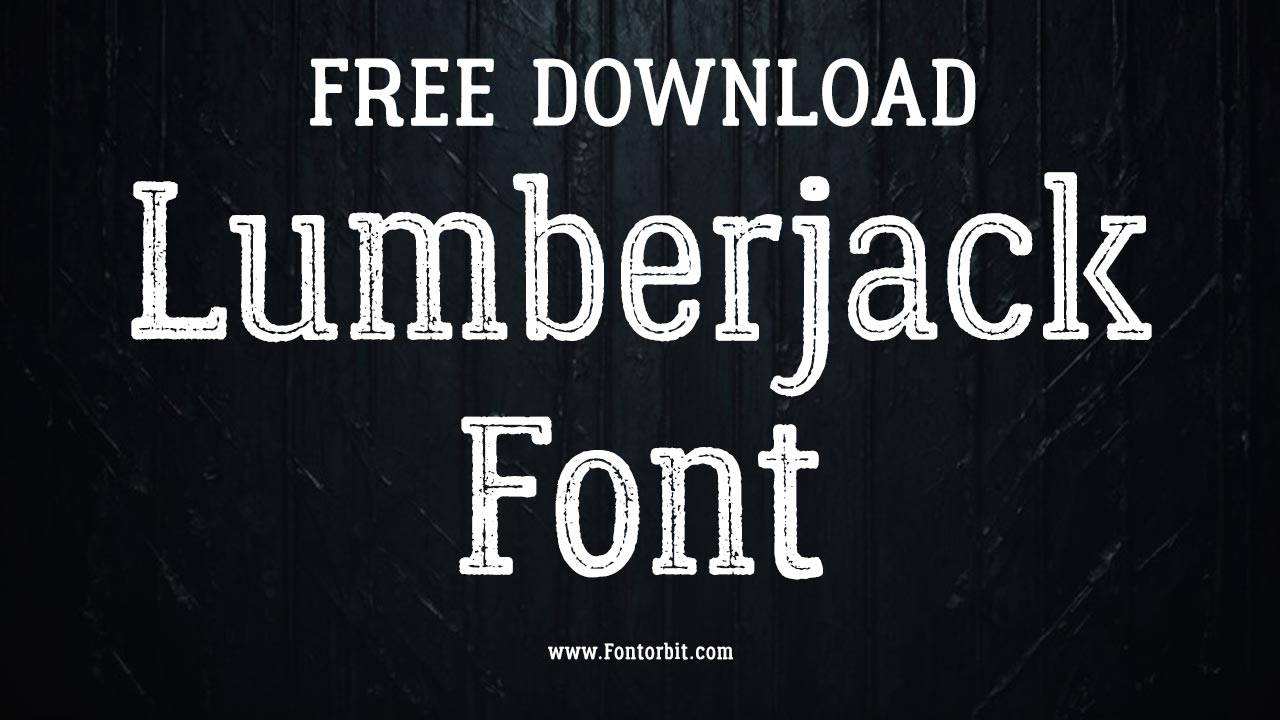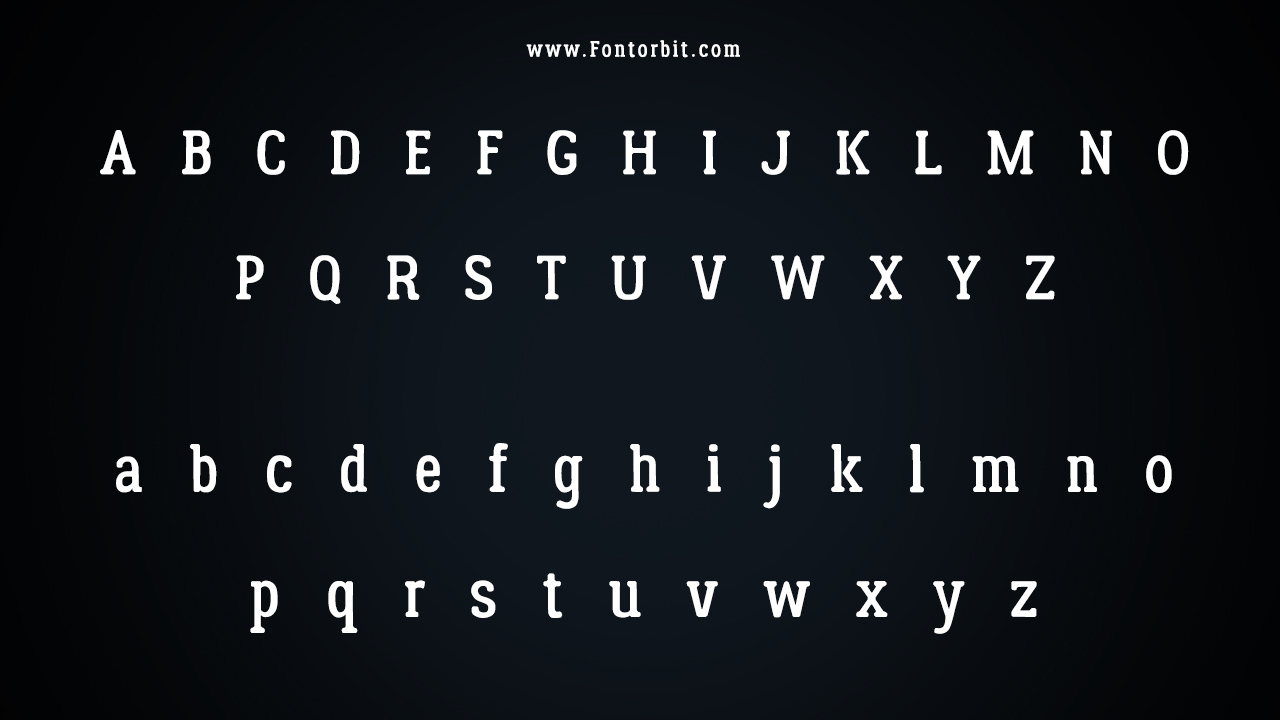
The Lumberjack Font, designed by Alexey Kalinin, is a versatile typeface known for its rugged and outdoorsy aesthetic. Featuring styles such as Regular, Rough, and Inline Rough, Lumberjack adds a touch of texture and robustness to your projects, making it perfect for designs that call for a strong and authentic appearance.
The Lumberjack Font Family
- Lumberjack Regular
- Lumberjack Inline Rough
- Lumberjack Rough
- Lumberjack Rough Shadow
- Outdoor and Adventure Themes
- Vintage Branding
- Logo Design
- Poster Art
- Rustic Signage
- Apparel Design
Lumberjack Font excels in projects that require a robust and textured look. Its various styles make it perfect for outdoor themes, vintage branding, and any design context that wants a strong and authentic appearance.
Lumberjack Font’s rugged design and versatile styles make it an excellent choice for creative projects that need a robust and outdoorsy touch. Its multiple variations and support for 51 languages enhance its usability across various applications.
1.What Is The Lumberjack Font?
Lumberjack Font is a typeface by Alexey Kalinin, featuring Regular, Rough, and Inline Rough styles that provide a rugged and outdoorsy aesthetic.
2.How To Choose The Right Style Within The Lumberjack Font Family?
Choose Lumberjack Regular for clean text, Lumberjack Rough for a distressed look, and Lumberjack Inline Rough for added depth and texture.
3.What Are The Key Features Of The Lumberjack Font?
Lumberjack Font offers a rugged design with multiple styles, supporting 51 languages and providing flexibility for various creative needs.
4.How To Use The Lumberjack Font In Design?
Use Lumberjack Font for outdoor-themed projects, vintage branding, or rustic designs to add a robust and textured look to your text.
5.What Are The International Language Support Options For The Lumberjack Font?
Lumberjack Font supports 51 languages, making it suitable for a wide range of Latin-based scripts.